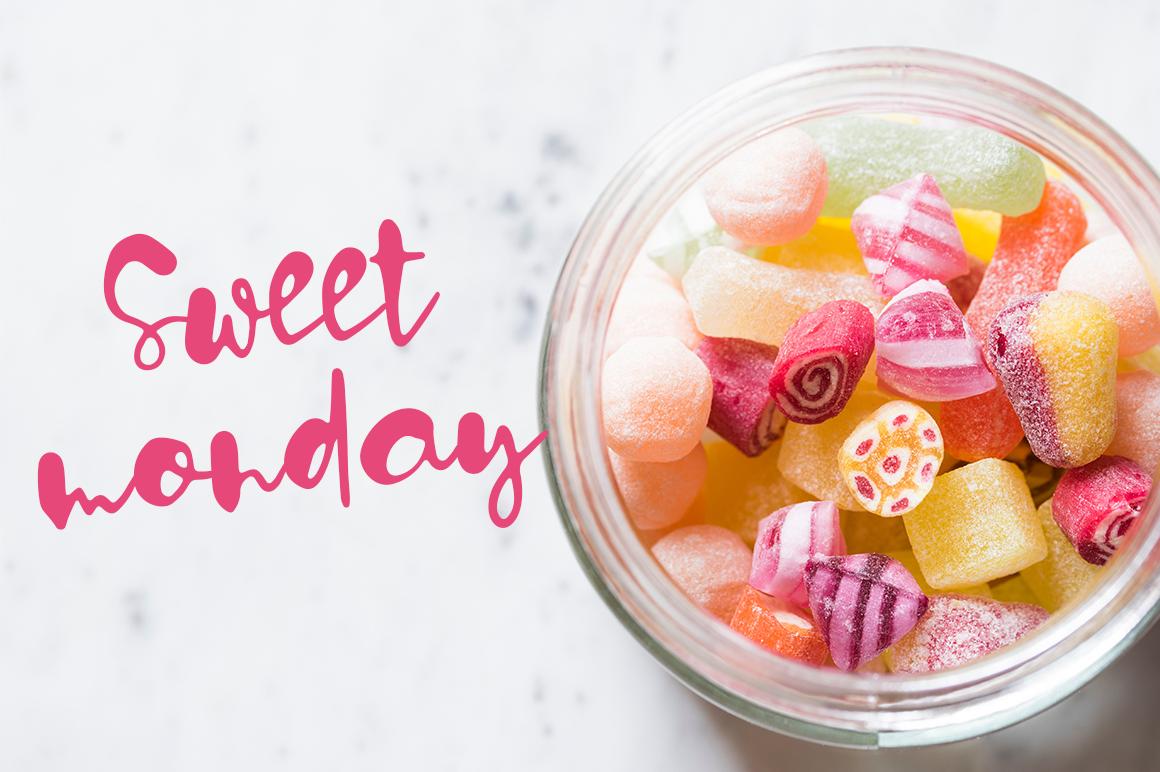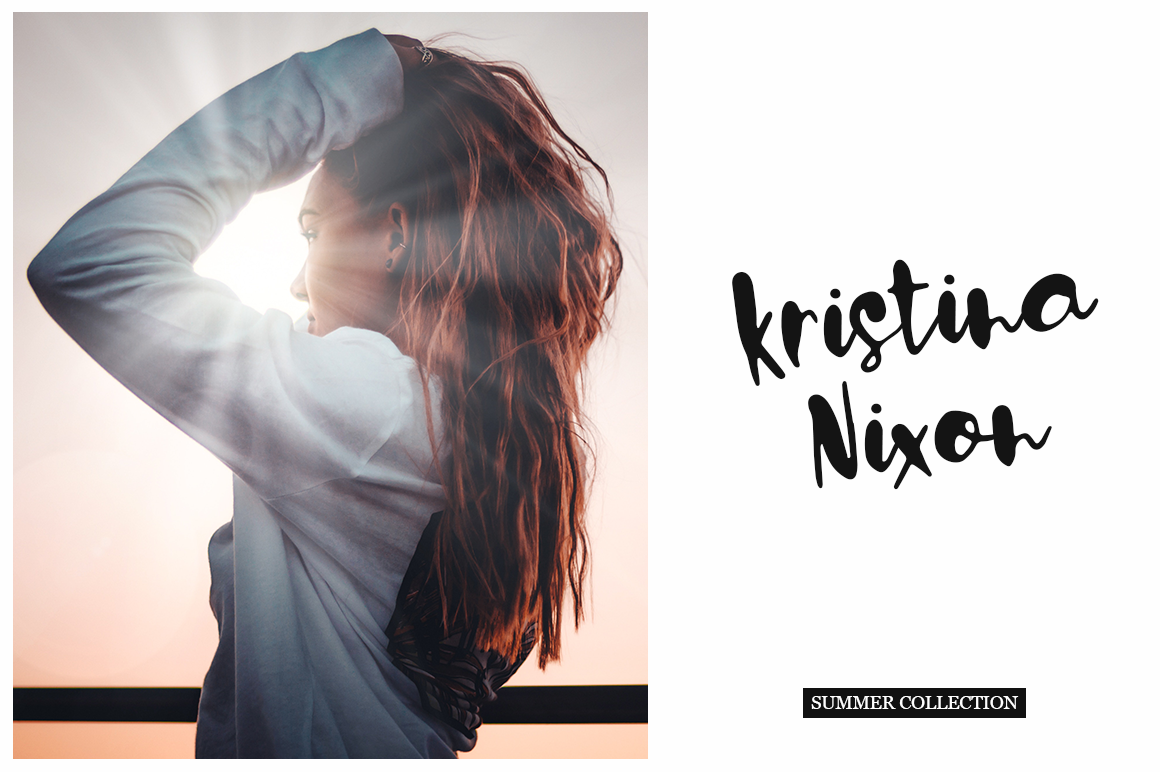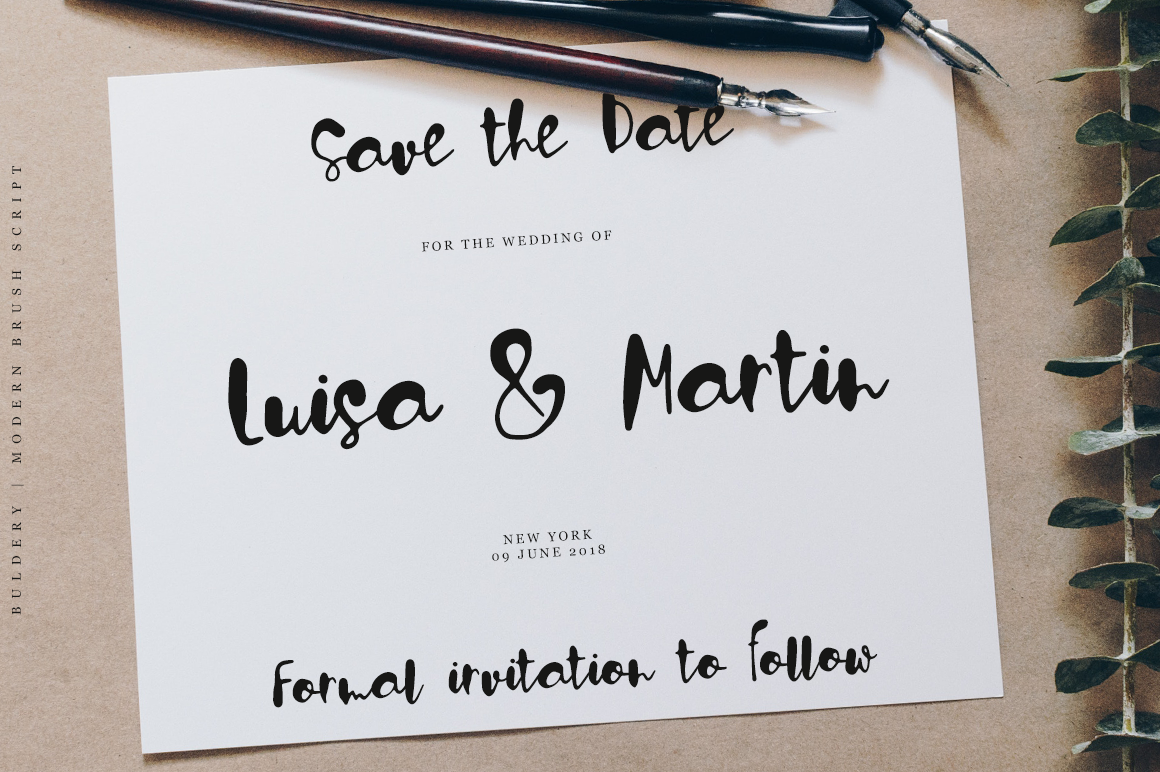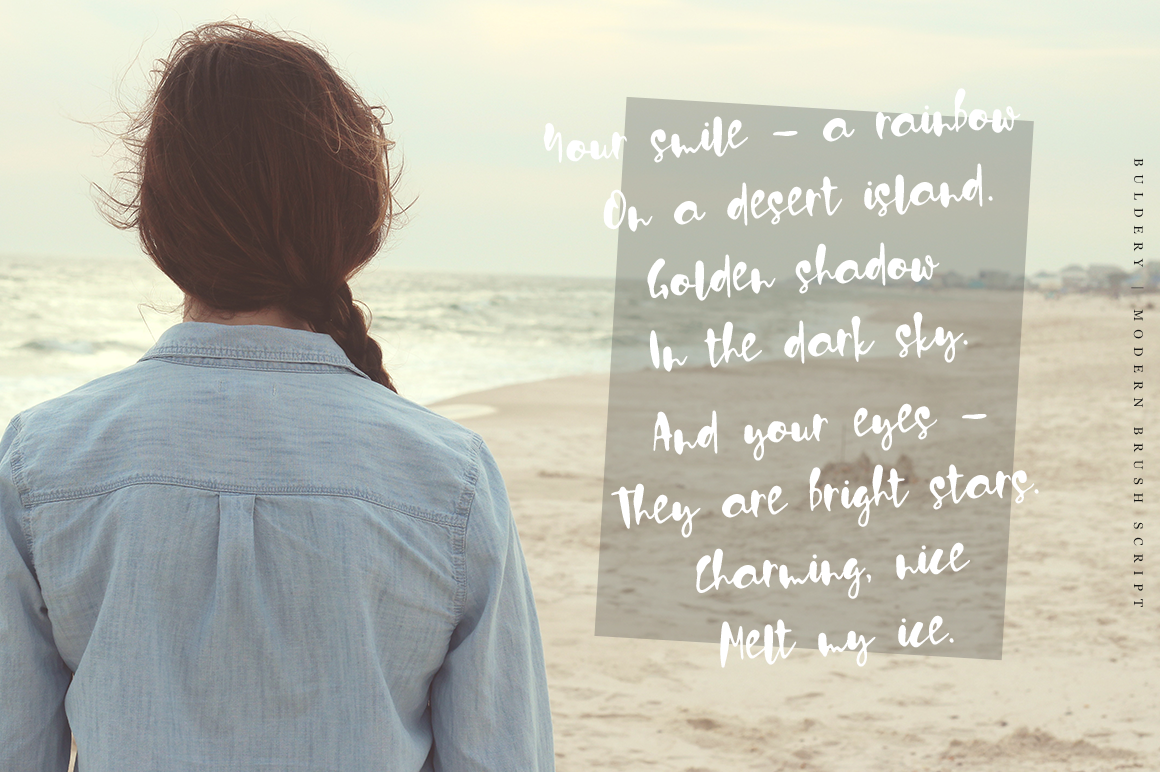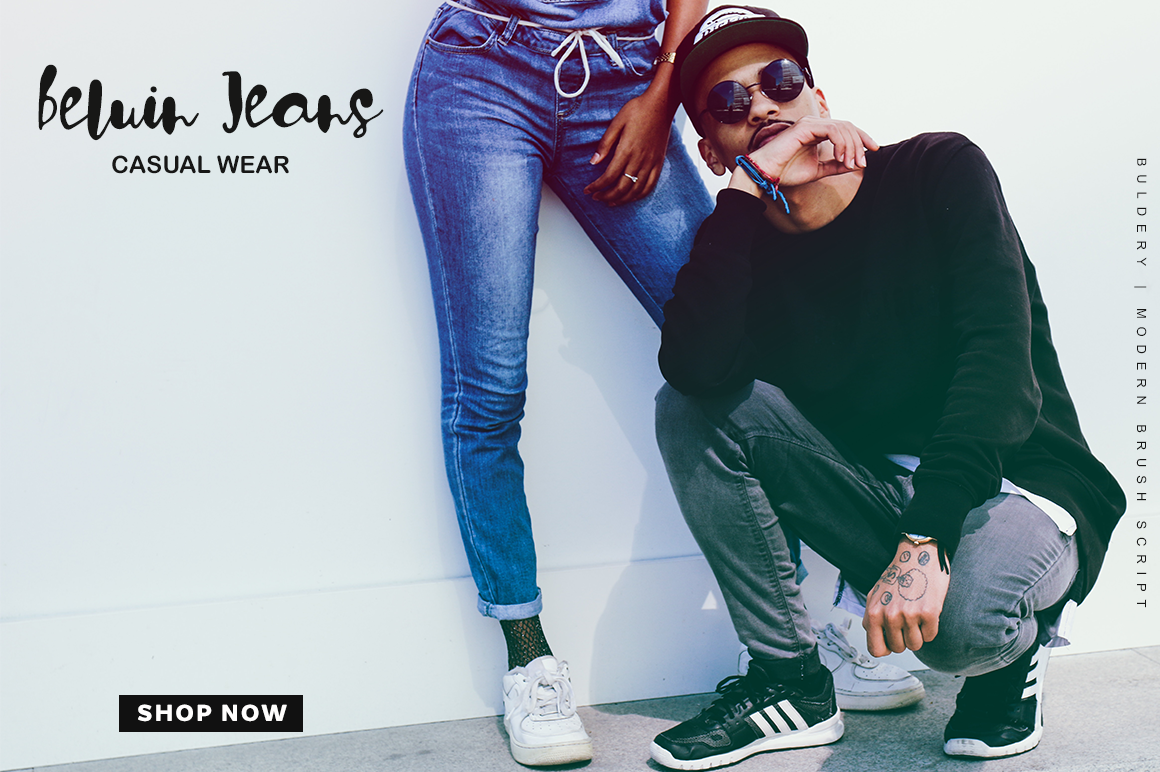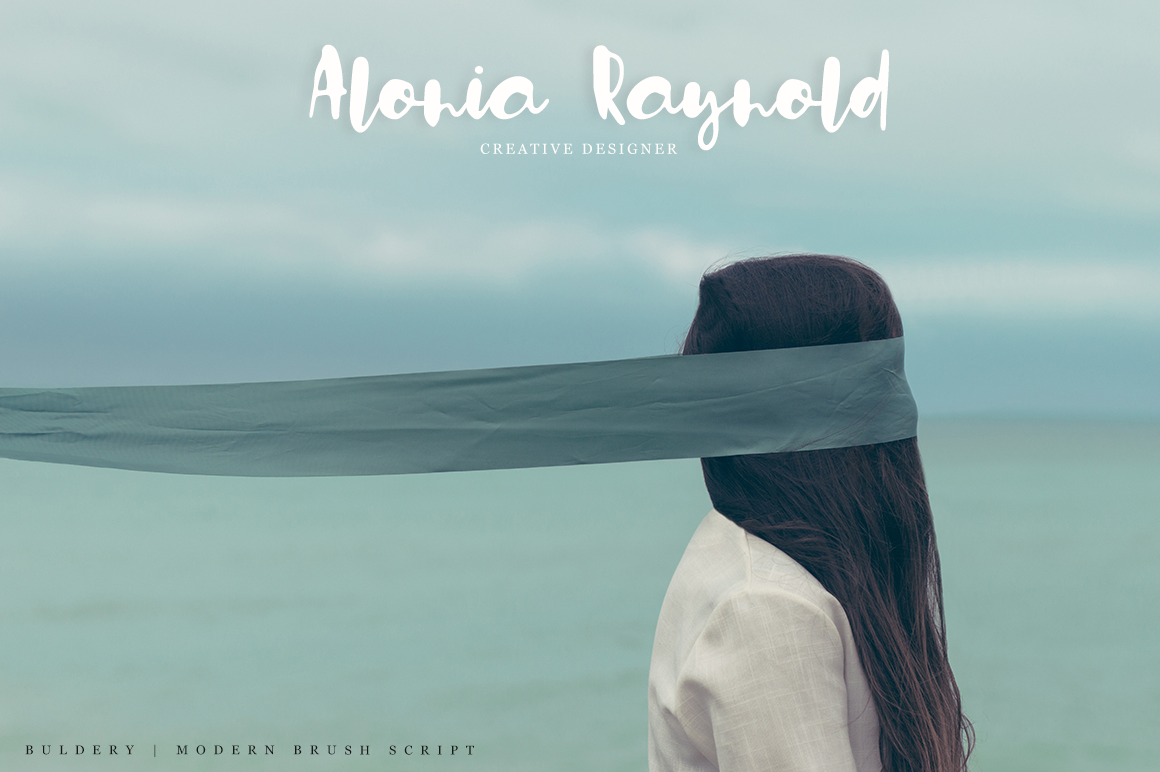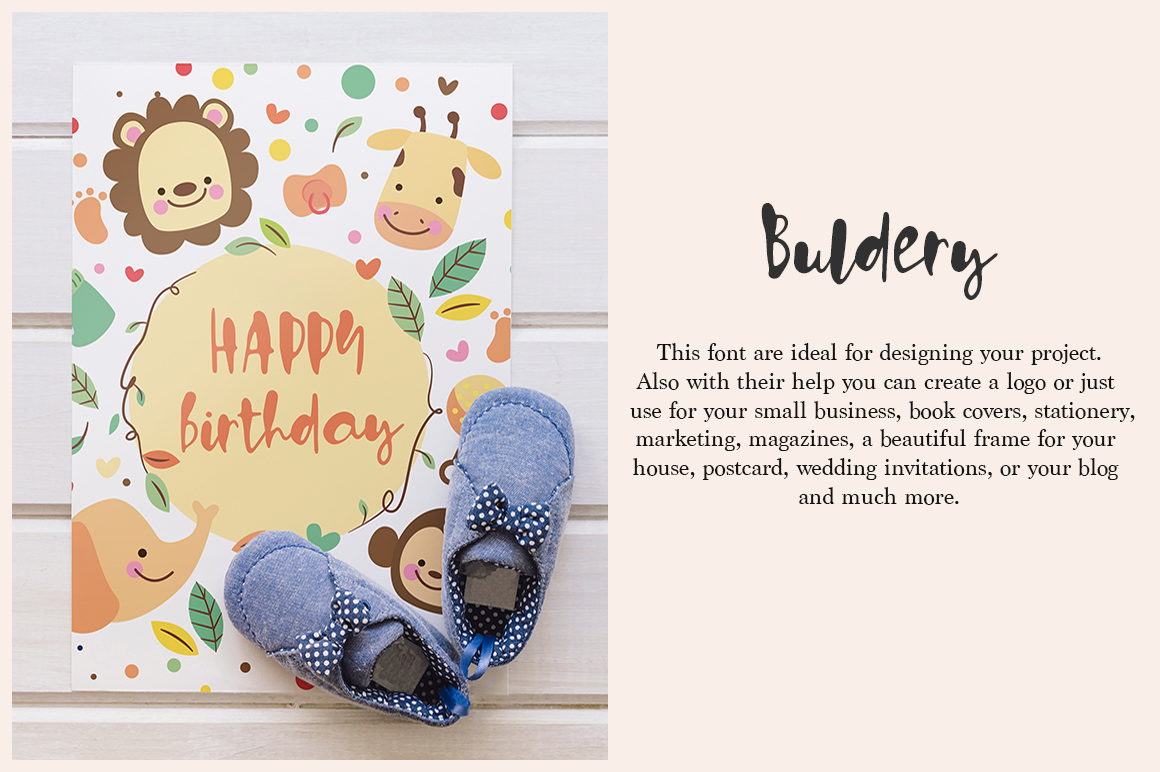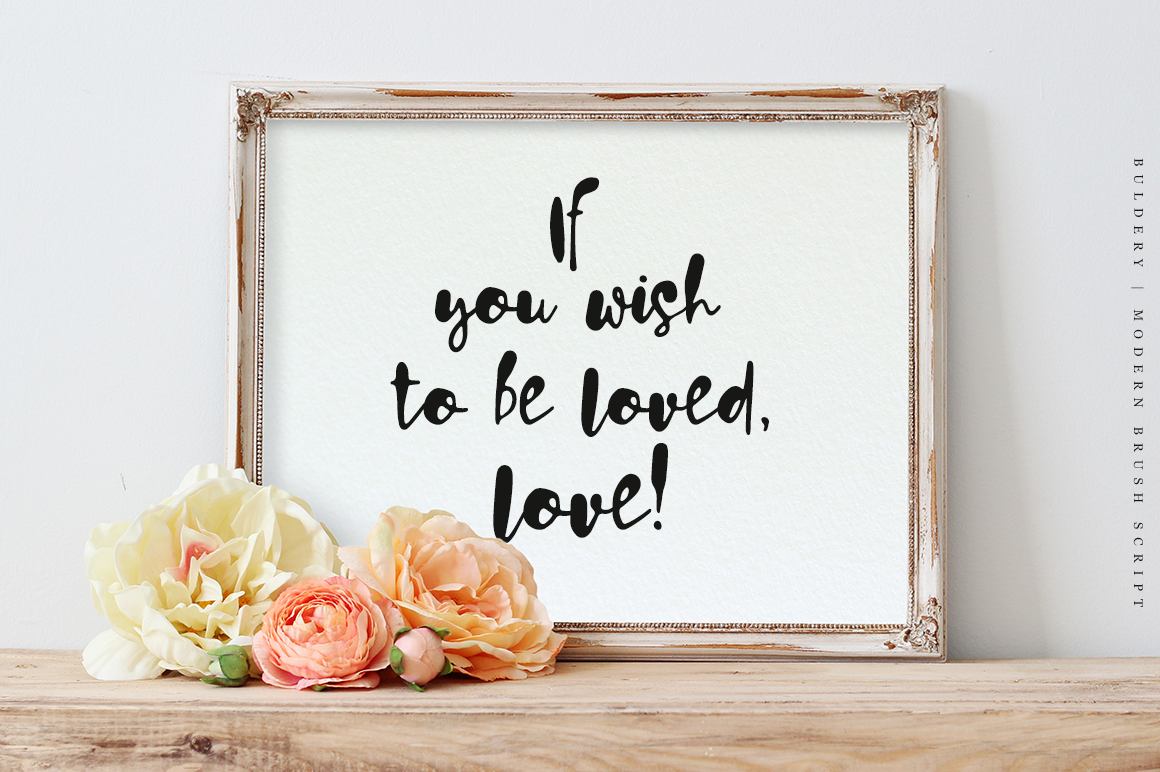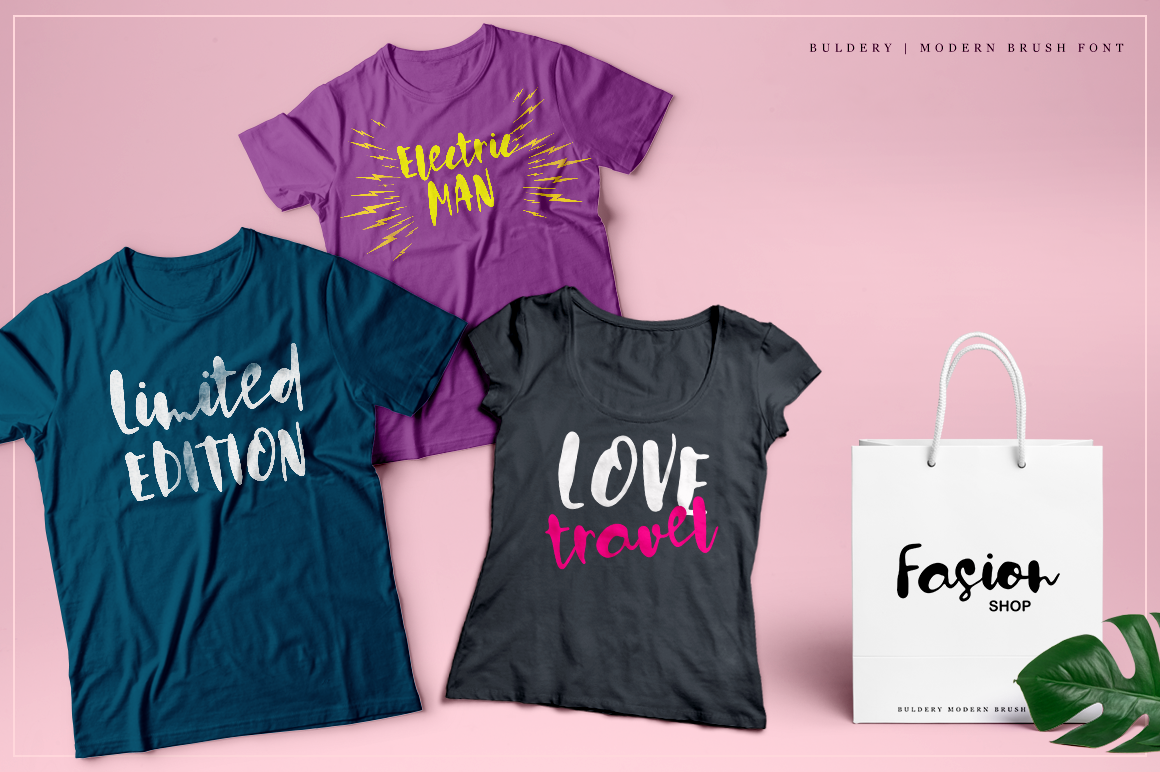
Buldery Font
About Buldery Font
Buldery is a gorgeous script font, ideal for modern styles and laid back projects. This font is handcrafted, giving it an endearing imperfection that will add a ton of charm to your designs.